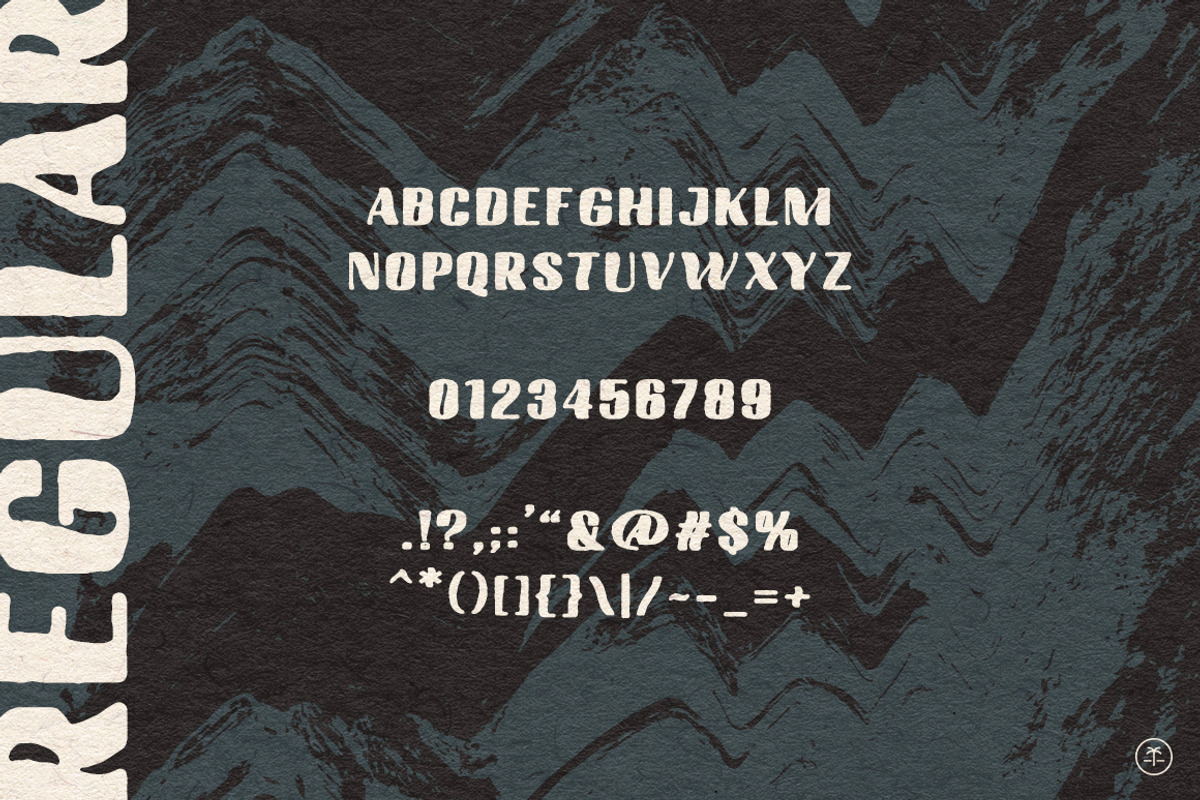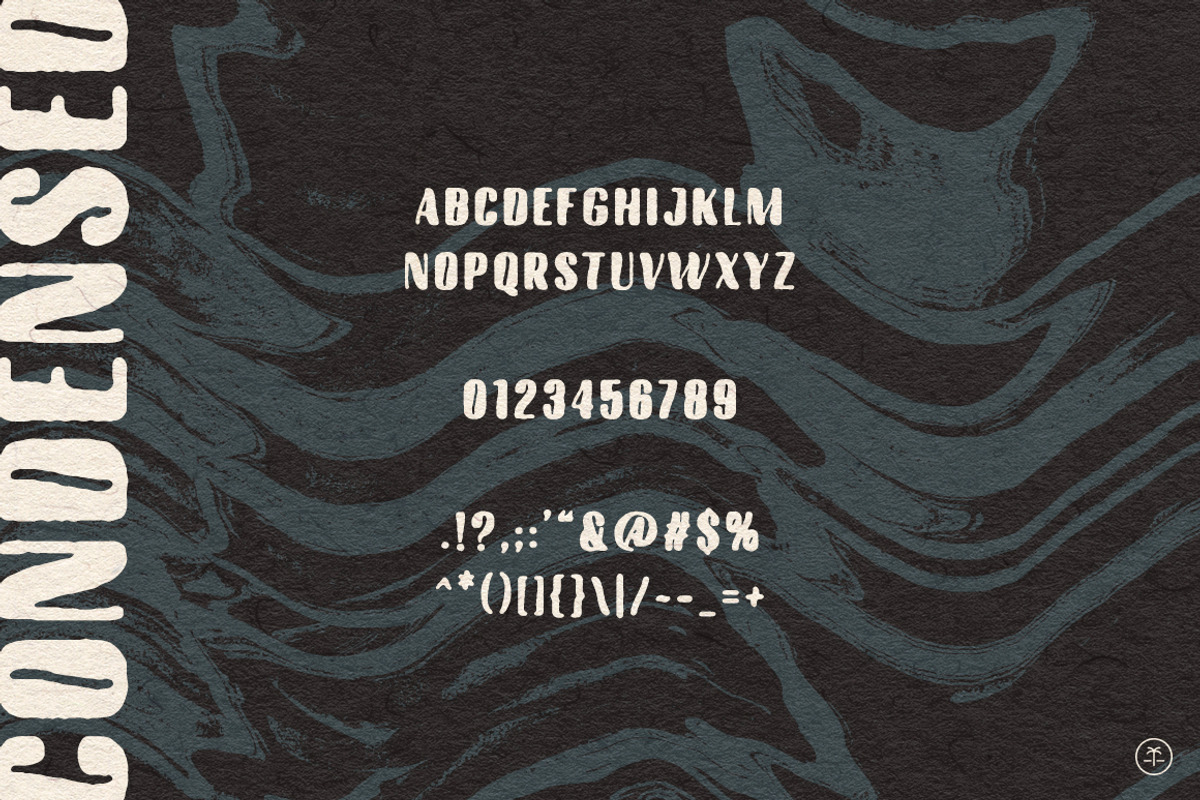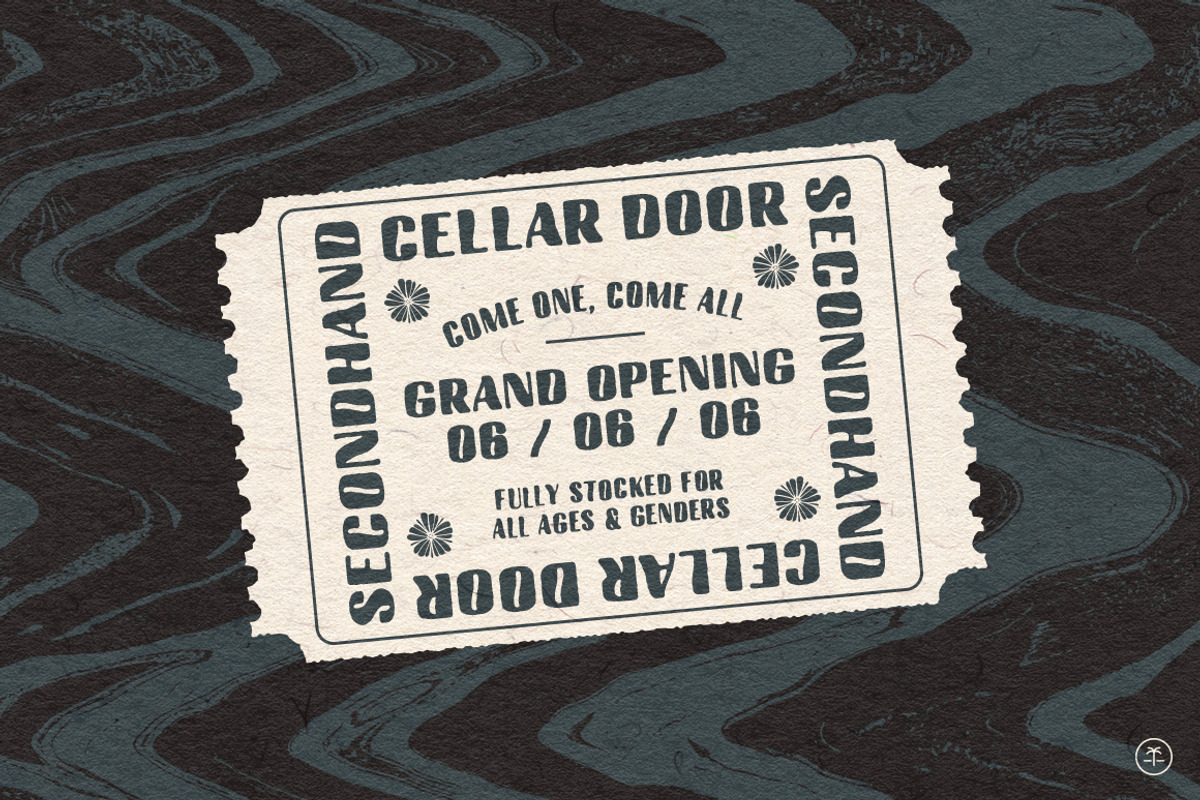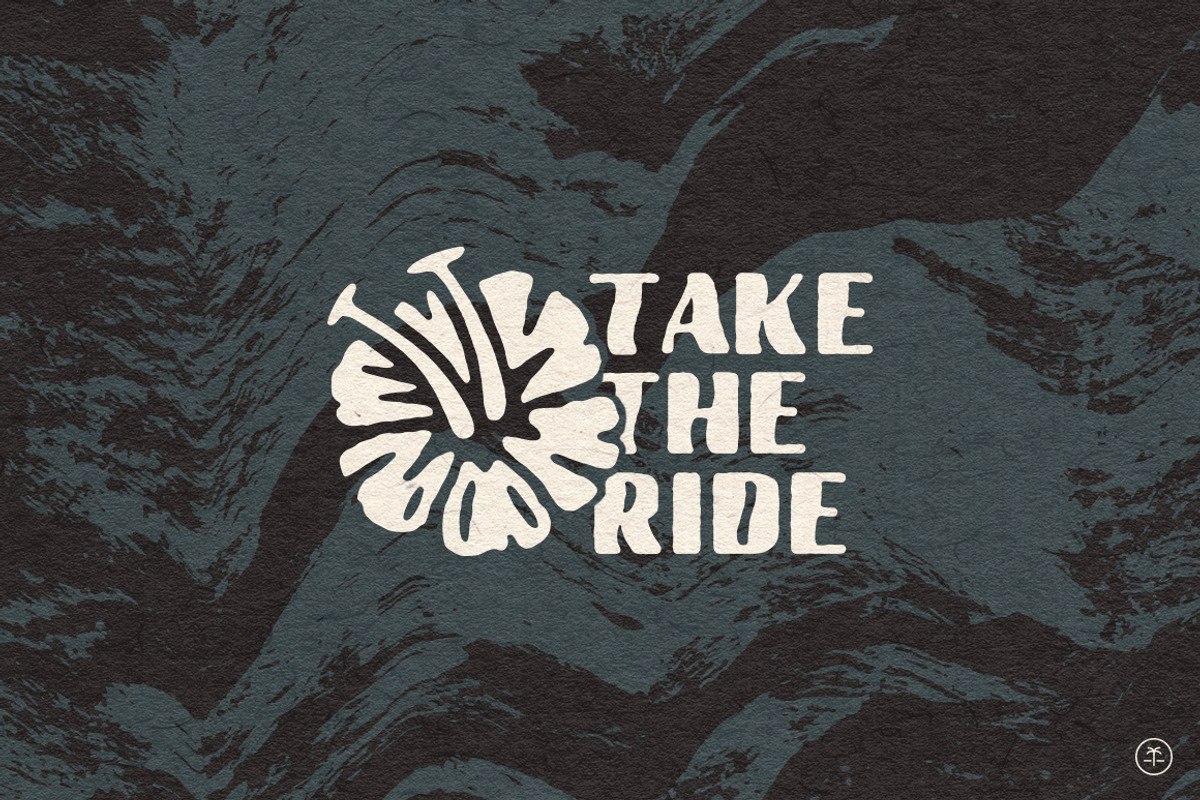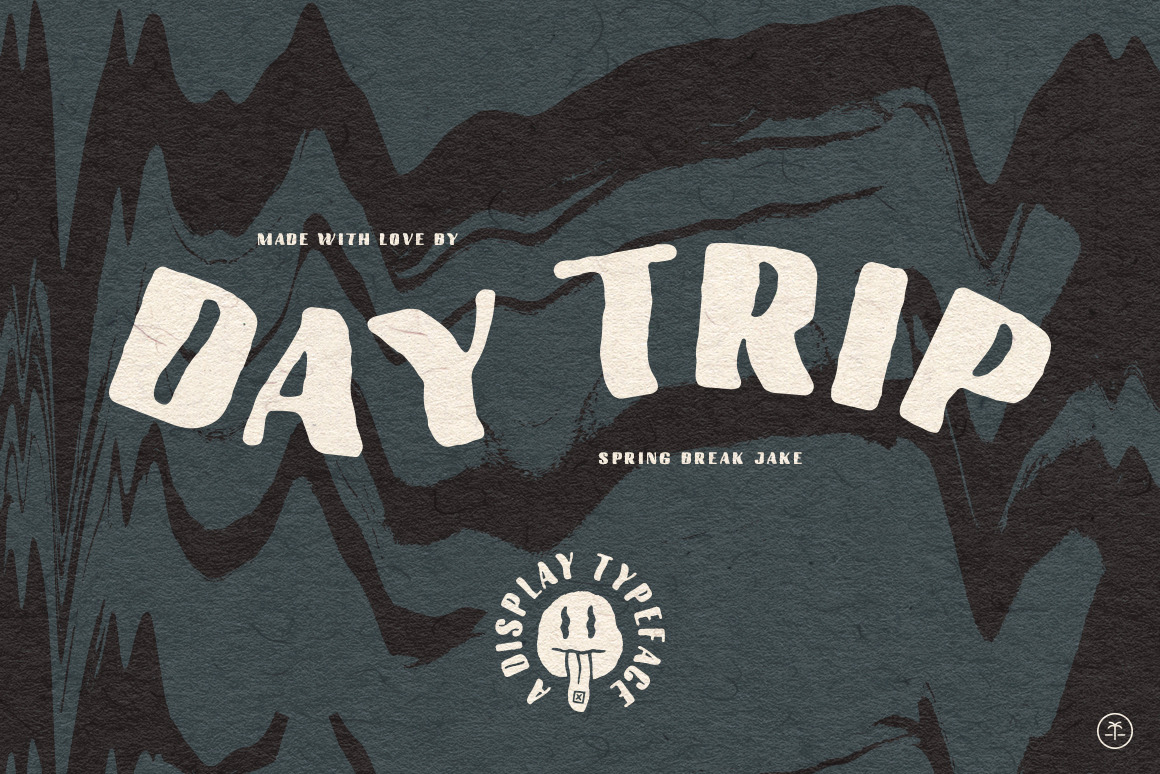
Day Trip - Psychedelic Display Font
Create a world of your own outside of space & time with Day Trip.
This psychedelic typeface comes complete with a full set of uppers in two style, both regular & condensed, whether you have caps lock on or not, as well as numbers and basic punctuation.